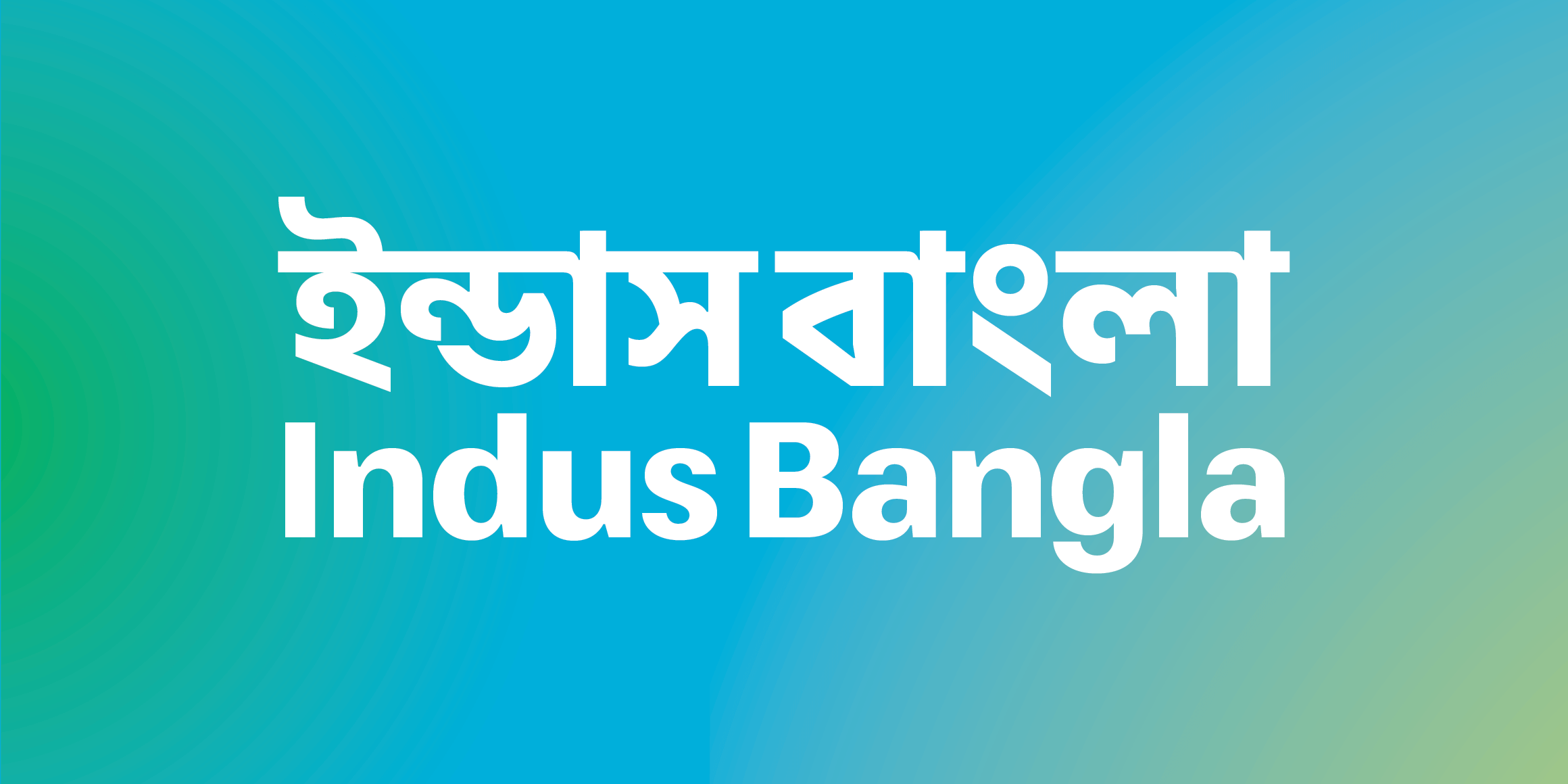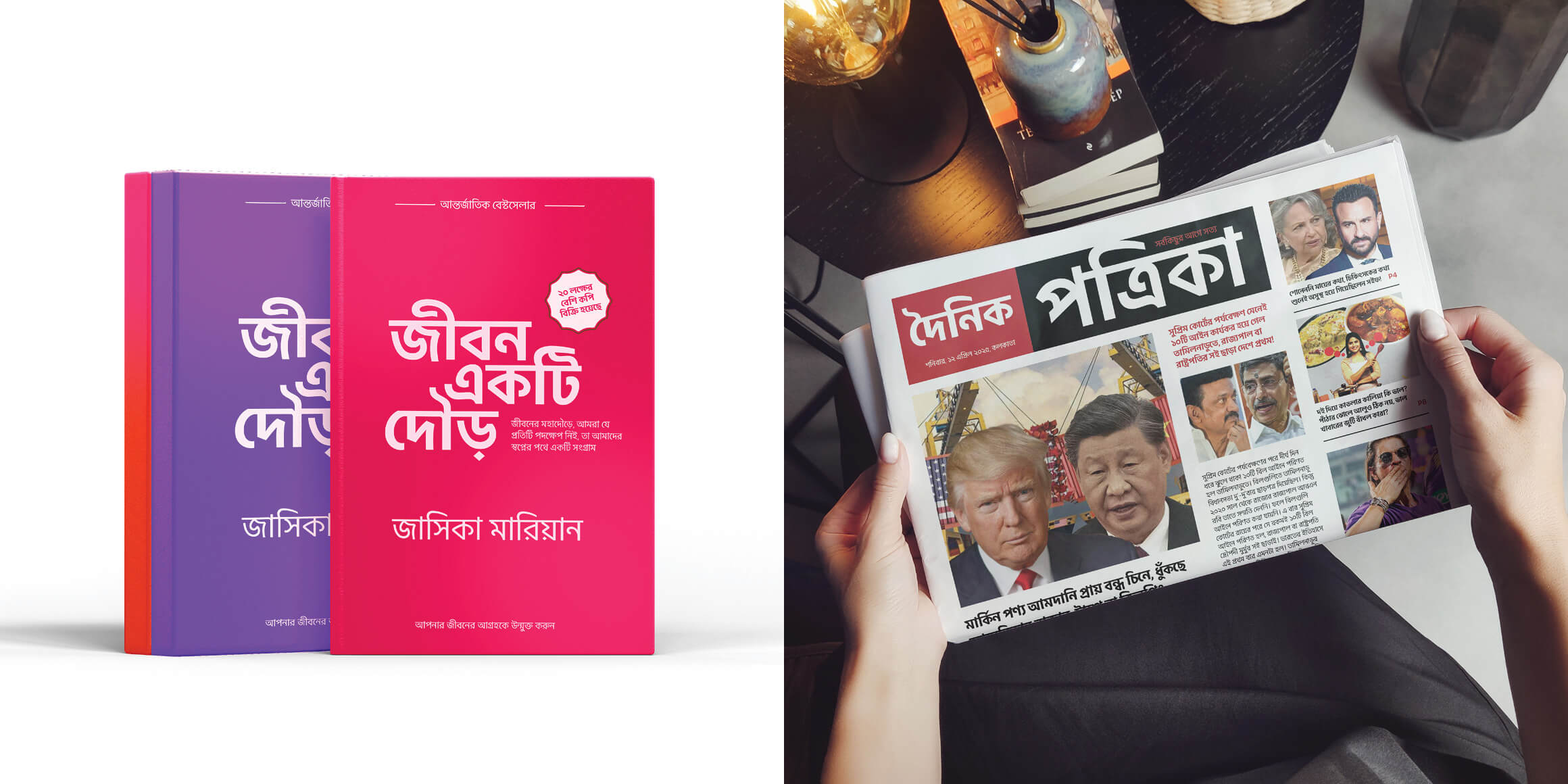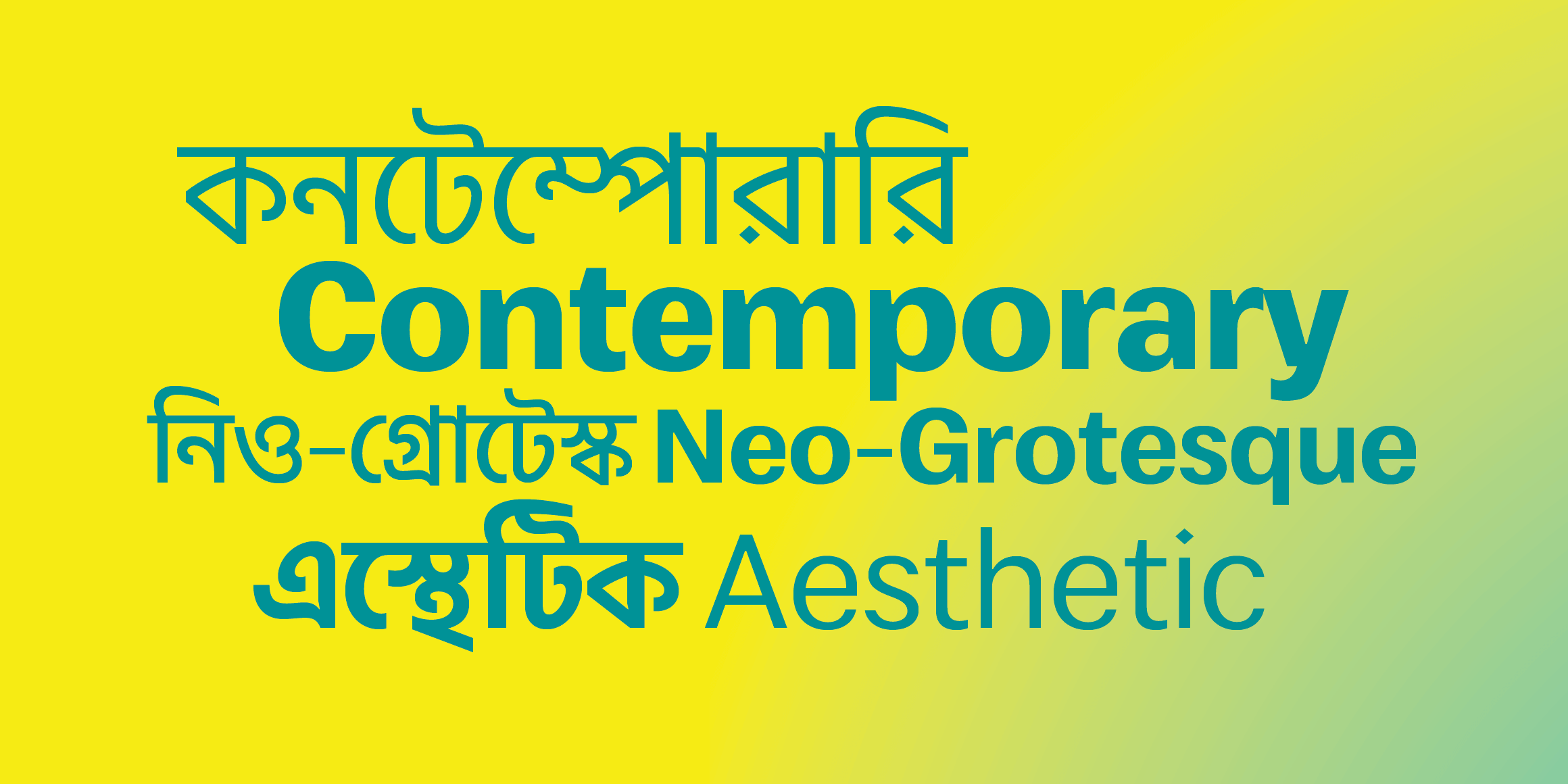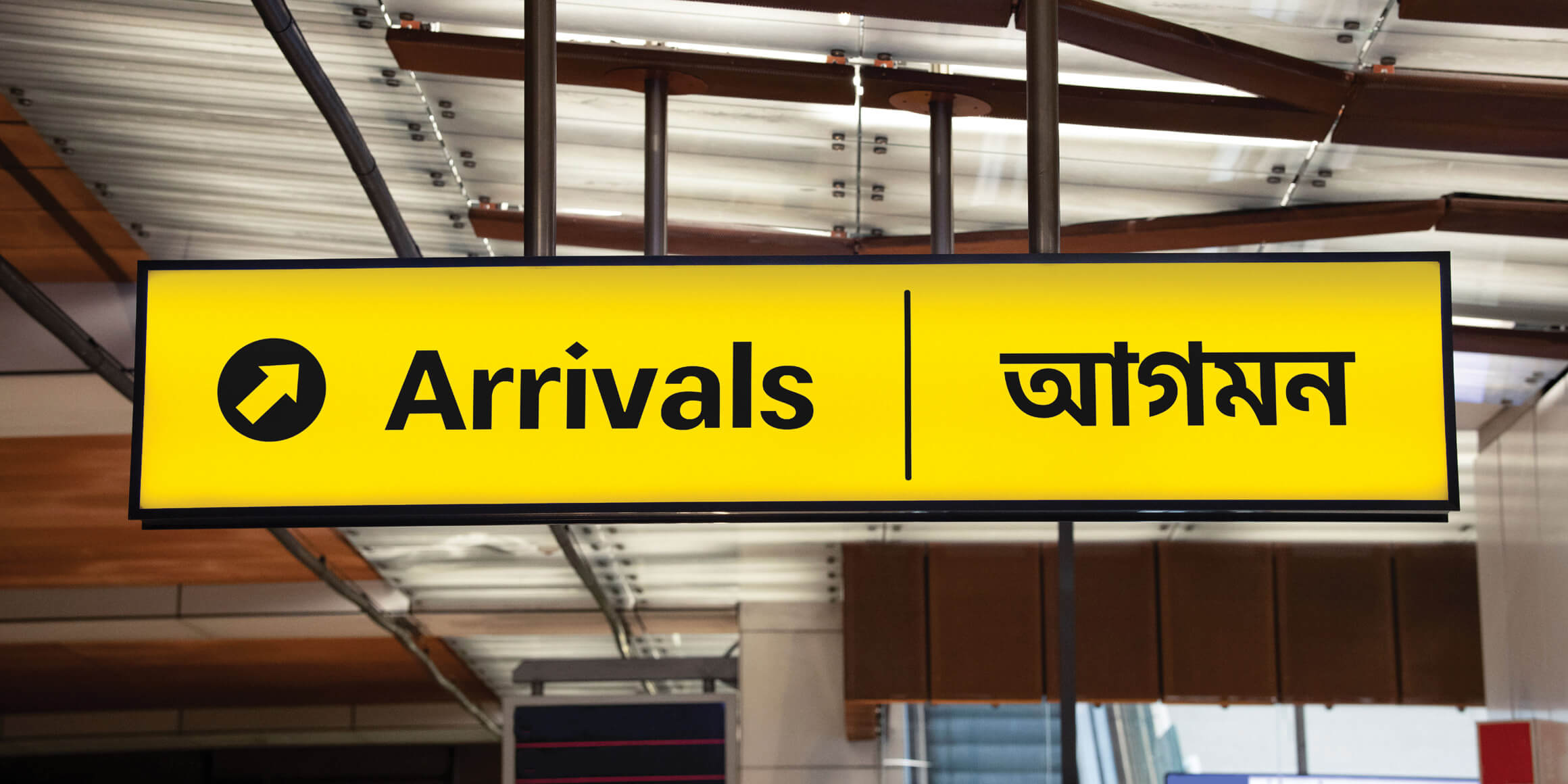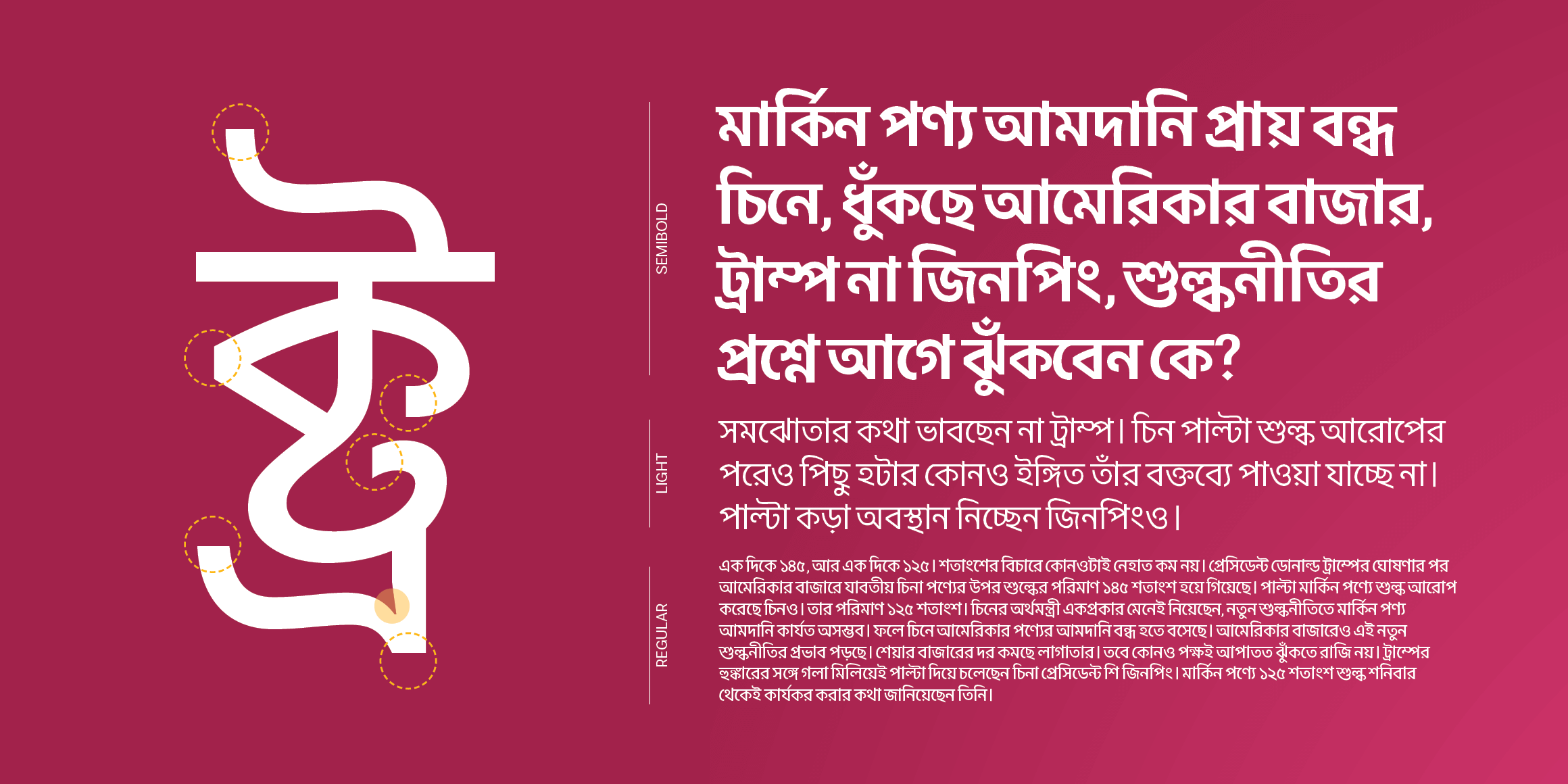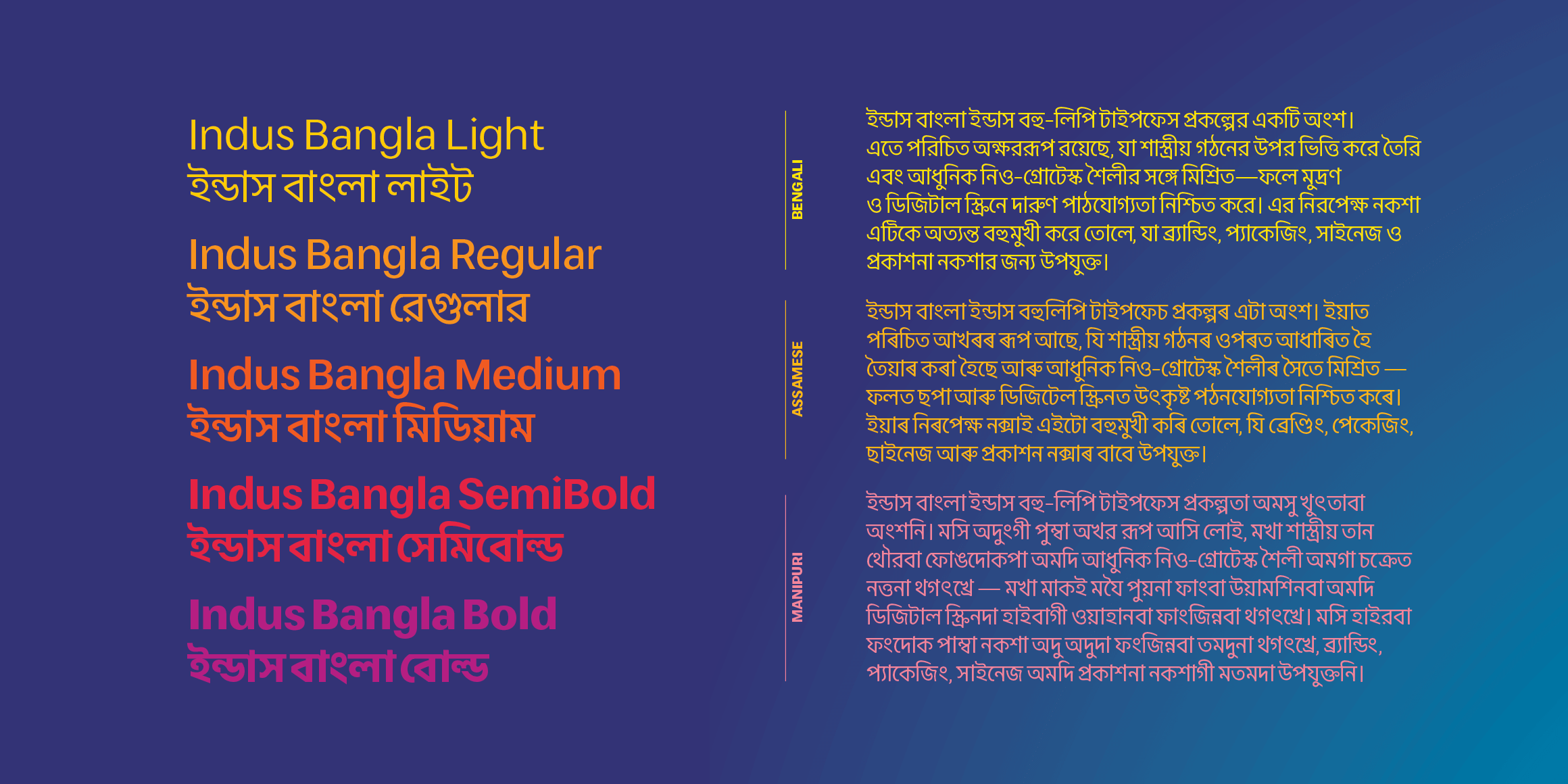
Indus বাংলা
Indus Bangla is a part of the Indus multi-script typeface project, designed to support a wide range of major Indian scripts, including Devanagari, Bangla, Tamil, Gurmukhi, Gujarati, Telugu, Malayalam, and Kannada. Rooted in a neo-grotesque aesthetic, Indus prioritizes simplicity, clarity, and functionality. Its letterforms are grounded in familiar, classical proportions and shapes while embracing a clean, contemporary tone.